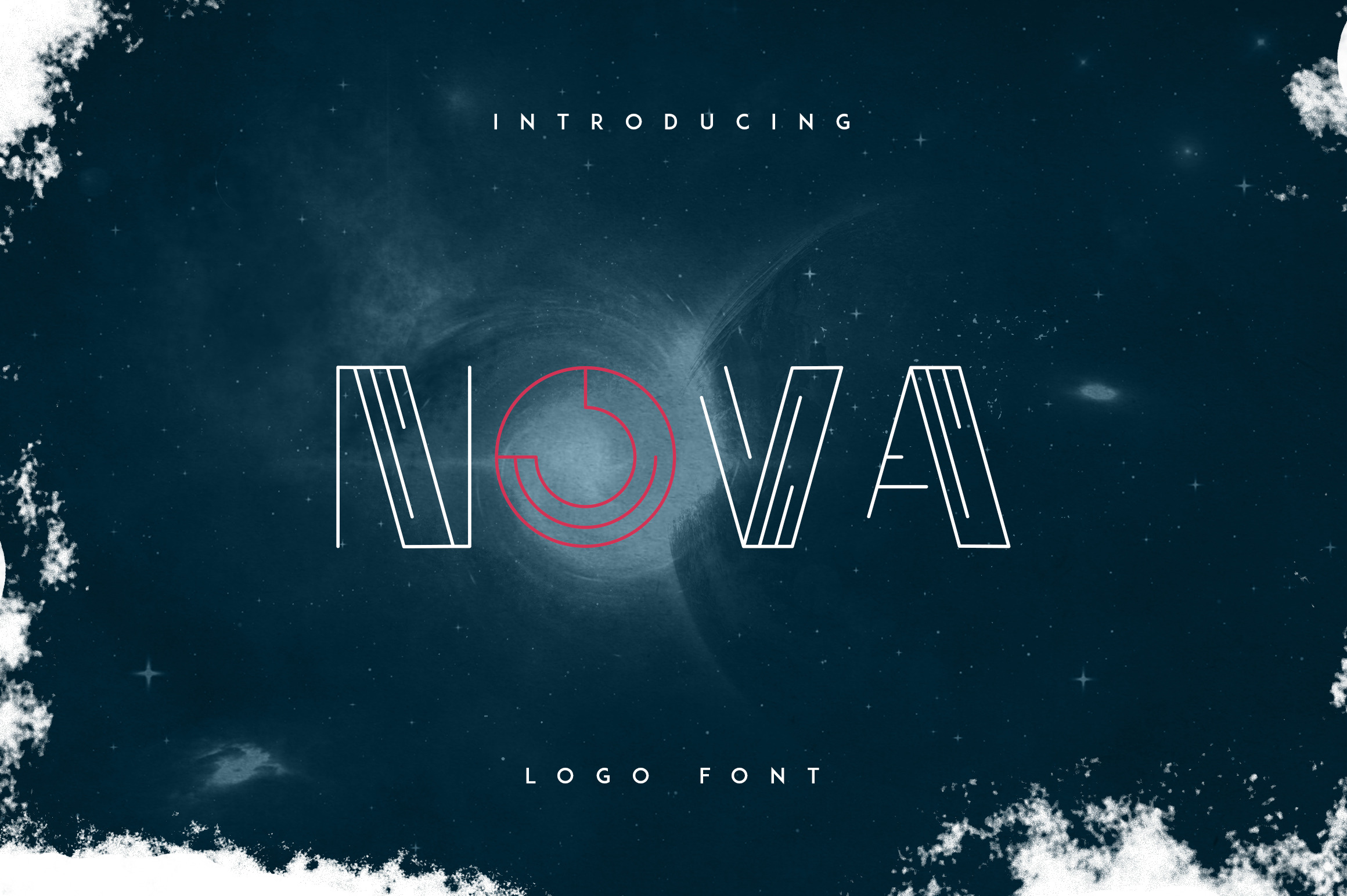
Nova - Logo Font
Nova logo display font
Nova logo display font is with round corners. It's a very versatile typeface that works great in large and small sizes, tight and wide spacing.